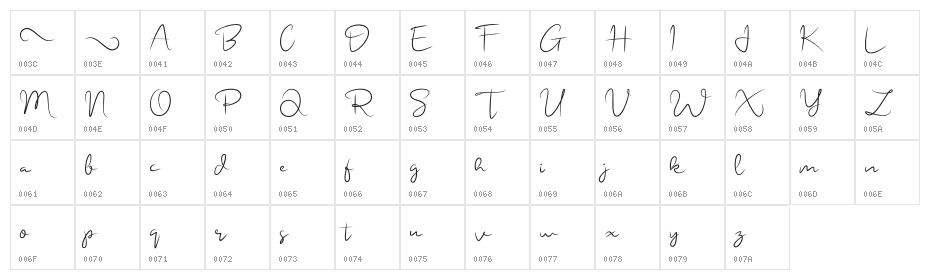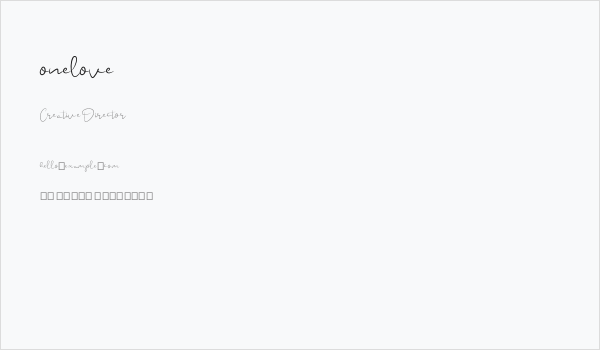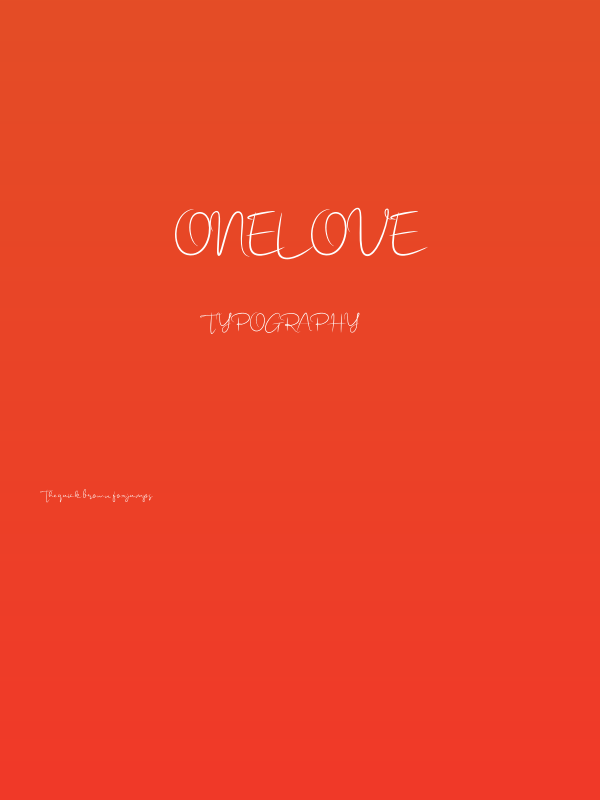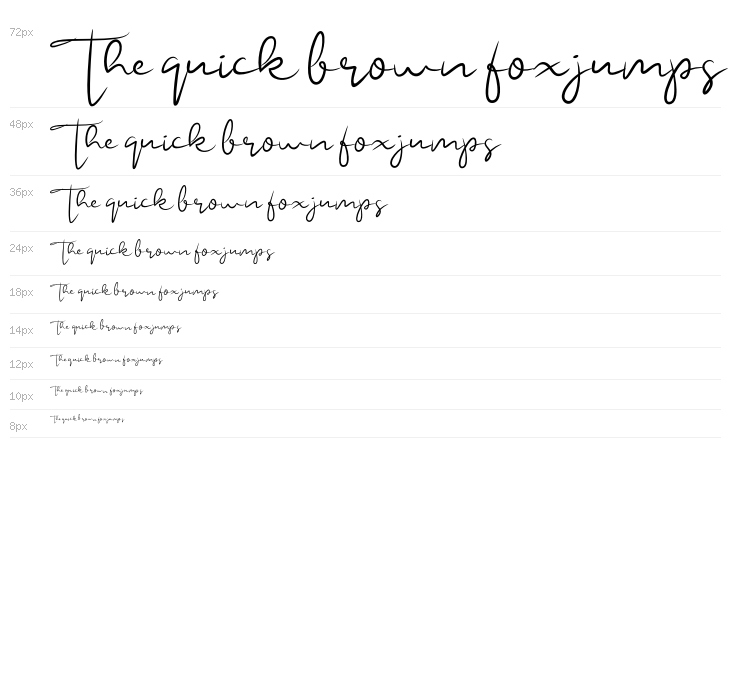
onelove Font
onelove Description
This font features an elegant, flowing script style with a modern touch. The uppercase letters are tall and slender, with graceful curves and loops that give a sense of fluidity and movement. The lowercase letters maintain a consistent style, with smooth connections between characters, enhancing readability while retaining a handwritten charm. This font exudes sophistication and is perfect for projects that require a personal, yet polished appearance. The overall design is airy and light, making it suitable for a variety of creative applications.
| Proposed Projects | Ideal for wedding invitations, greeting cards, branding, and social media graphics. |